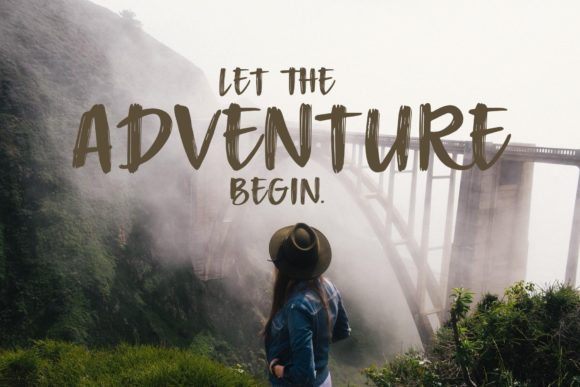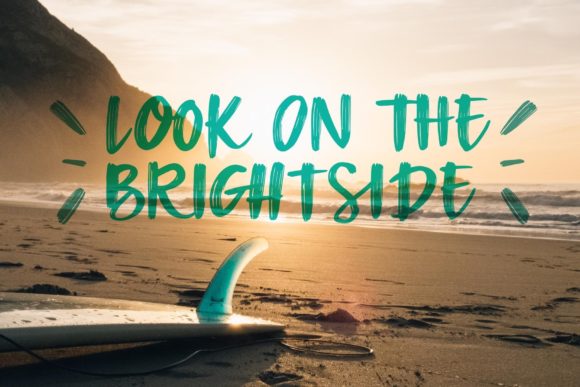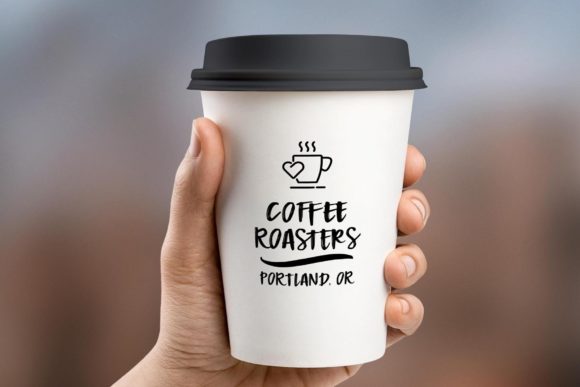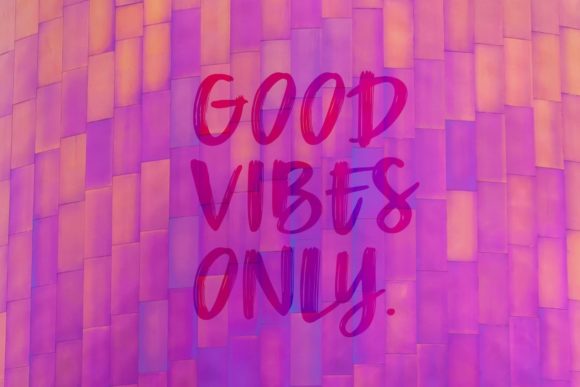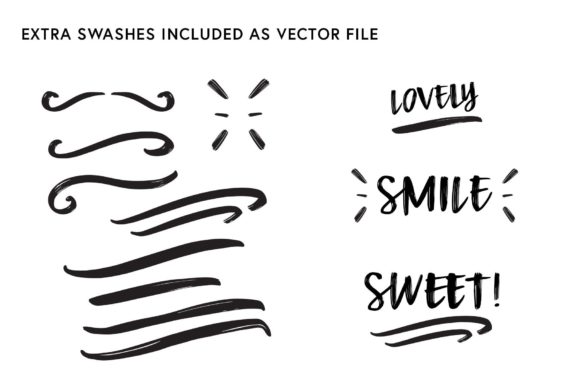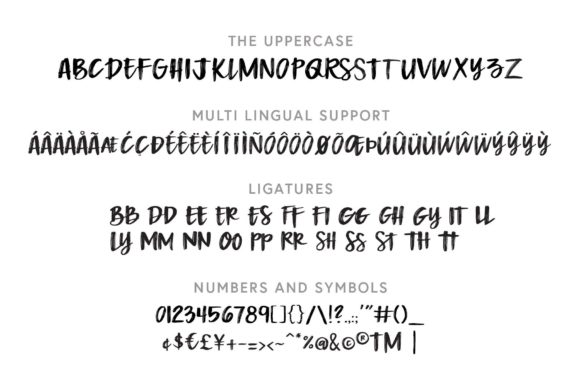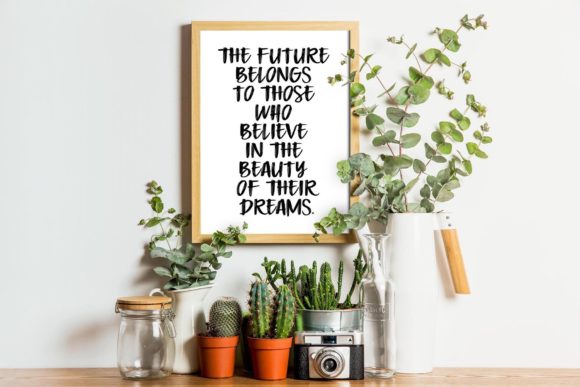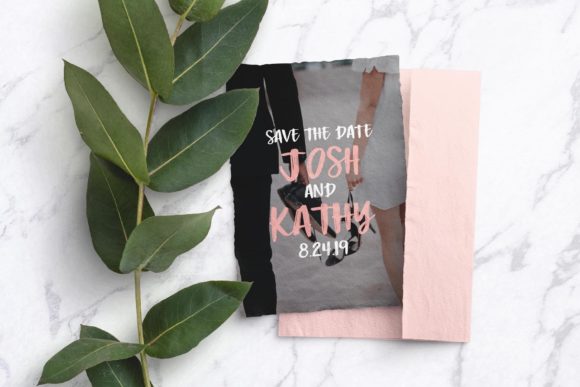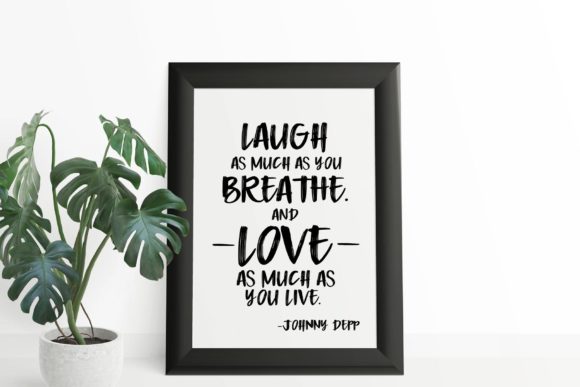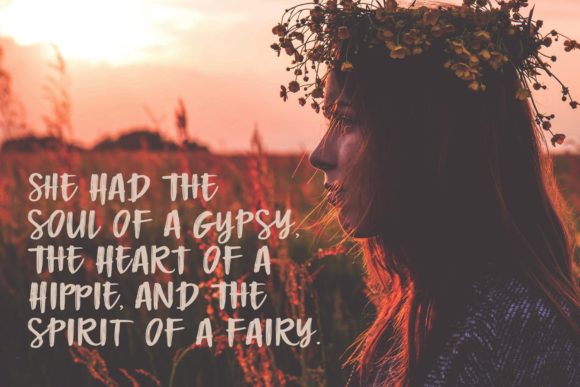
Boho Babe Font
About Boho Babe Font
Boho Babe is a cool, brushed and natural script font. It can be added to a variety of casual designs. It will add a touch of relaxation and peacefulness.